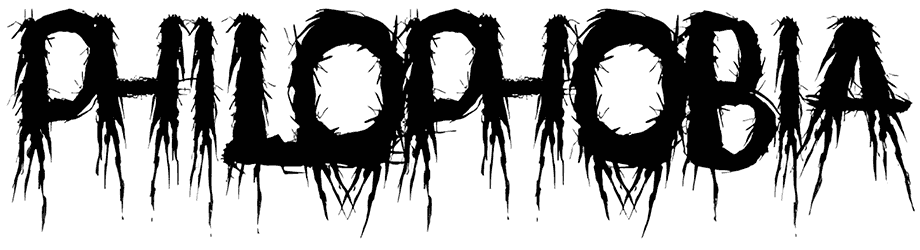
Philophobia Font
Philophobia looks very scary due to the combination of many narrow lines, and its hidden meaning can be understood quite accurately. This horror font hides a new style that compensates for the lack of numbers and small letters, and will open a new window to the day of designers.
So it is time to use this aggressive font in your posters, advertisements, and invitation cards, and make them distinguished.
use 1 to sub for lowercase a
Uppercase A: uppercase A
Lowercase a: uppercase A